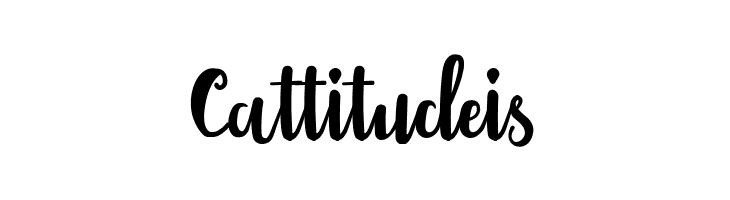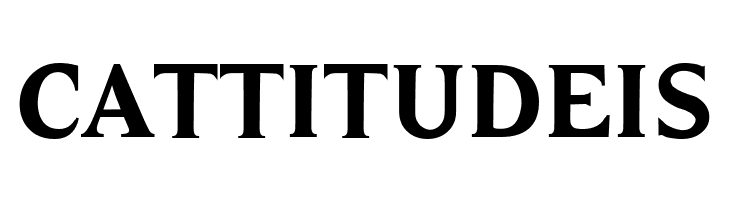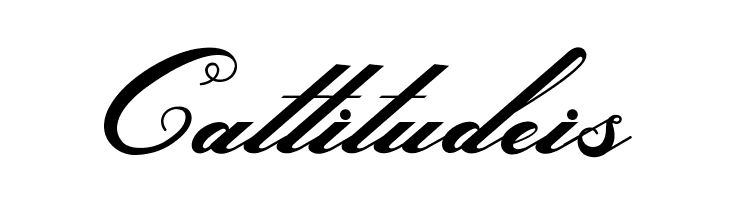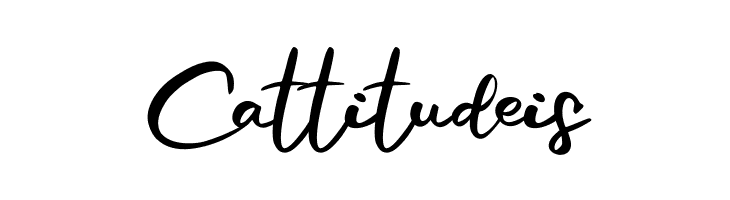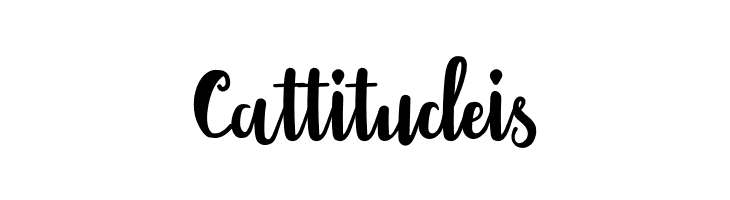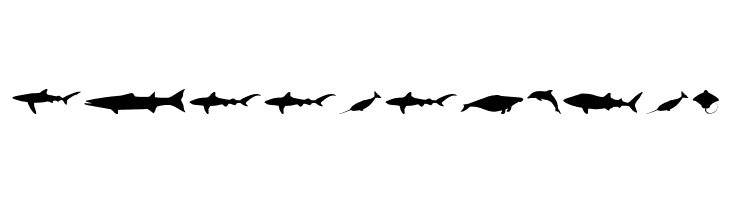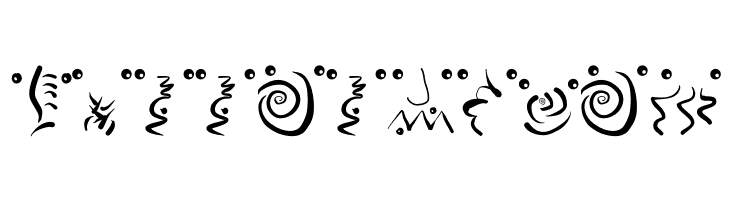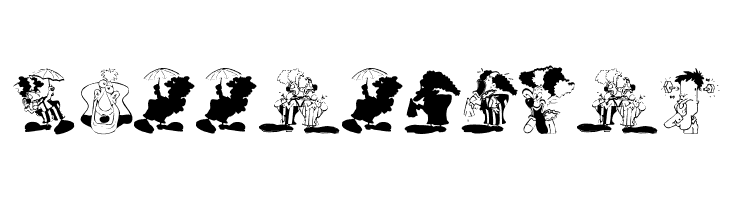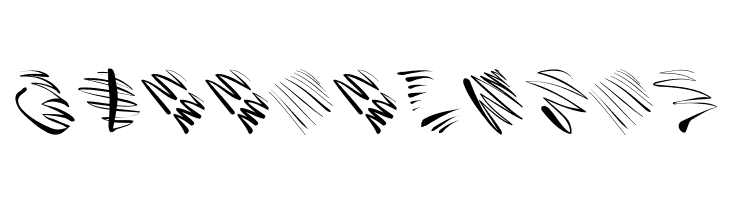
• GershwinOblique
An elegant oblique font with moderate contrast and a cohesive, sophisticated style.
• GershwinRegular
A modern serif font with elegant, slightly condensed letterforms.
• Gestalten
A cartoonish, illustrative display font made from character drawings.
• Gestures
Expressive, abstract font with gestural, sketch-like strokes.
• GesturesMK
Expressive, abstract font with playful, doodle-like characters.
• Get Burnt
• Getier
Pictogram-based decorative font with ancient and archaeological motifs.
• GetierAnimalish
A decorative animal-themed dingbat font with playful illustrations.
• GetierTwo
Animal silhouette display font with bold, geometric shapes.
• Getolyfe Free For Personal
A bold, playful script font with a handwritten feel.
• Getolyfe Free For Personal
A bold, playful script font with a handwritten style.
• GF_SnowDeco Free
• Ghang
Bold, graffiti-inspired font with angular, geometric shapes and a 3D effect.
• Ghang Plain
A bold, angular font with a modern and edgy style.
• Ghaya FreeVersion
An elegant script font with intricate swirls and flourishes.
• Ghetto Fabulous
A bold, dramatic script font with intricate curves and flourishes.
• Ghetto Fabulous Bold
A bold, dramatic font with a flowing, cursive-like style and urban flair.
• Ghetto Streetz
• Ghost Of The Wild West
A rugged, textured font with a vintage Wild West aesthetic.
• Ghostbusters
• Ghostwriter
A playful, hand-drawn font with irregular and whimsical letterforms.
• Ghoul Headline
• Ghoul Outline
• Ghoul Outline Fill